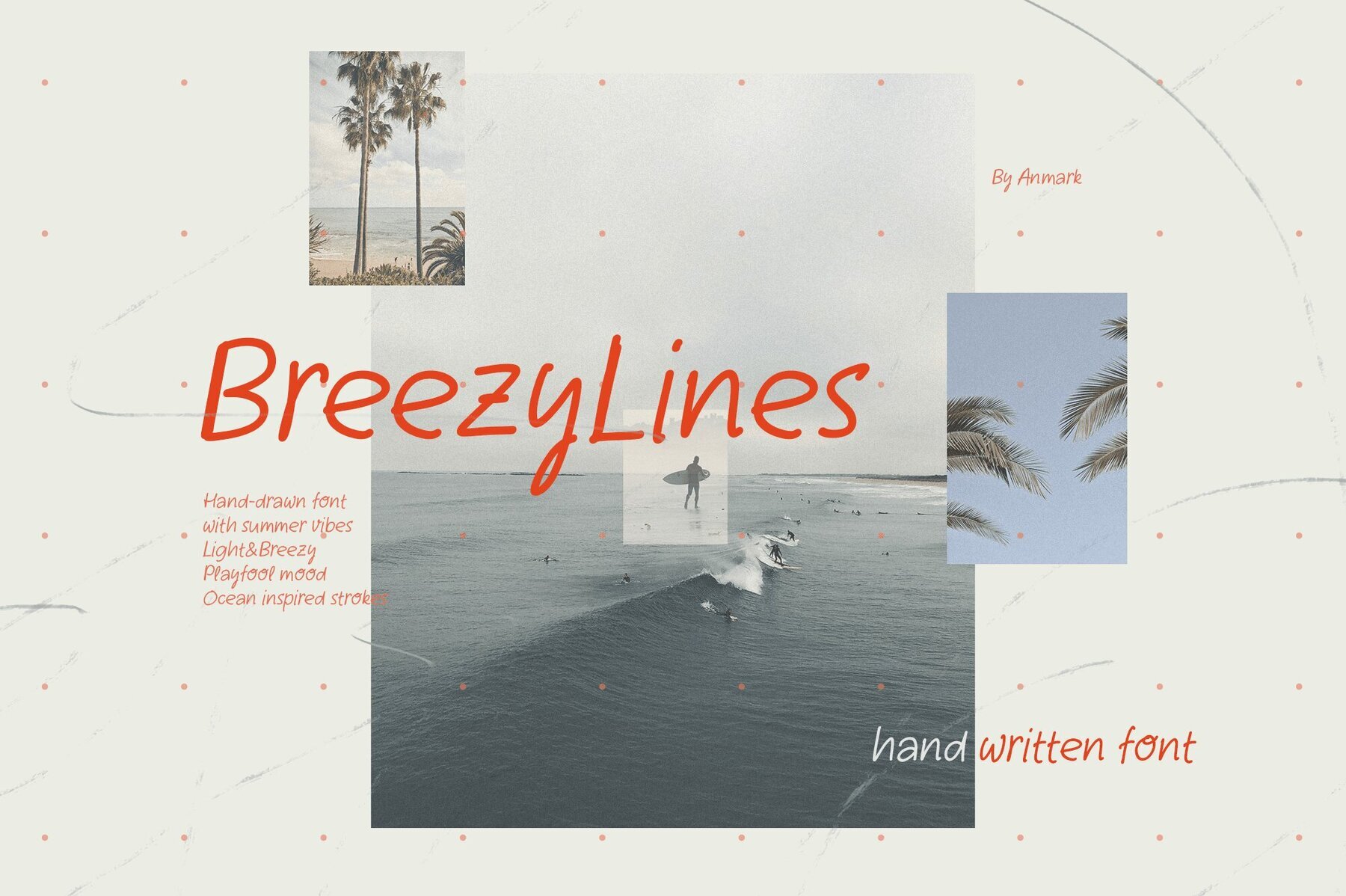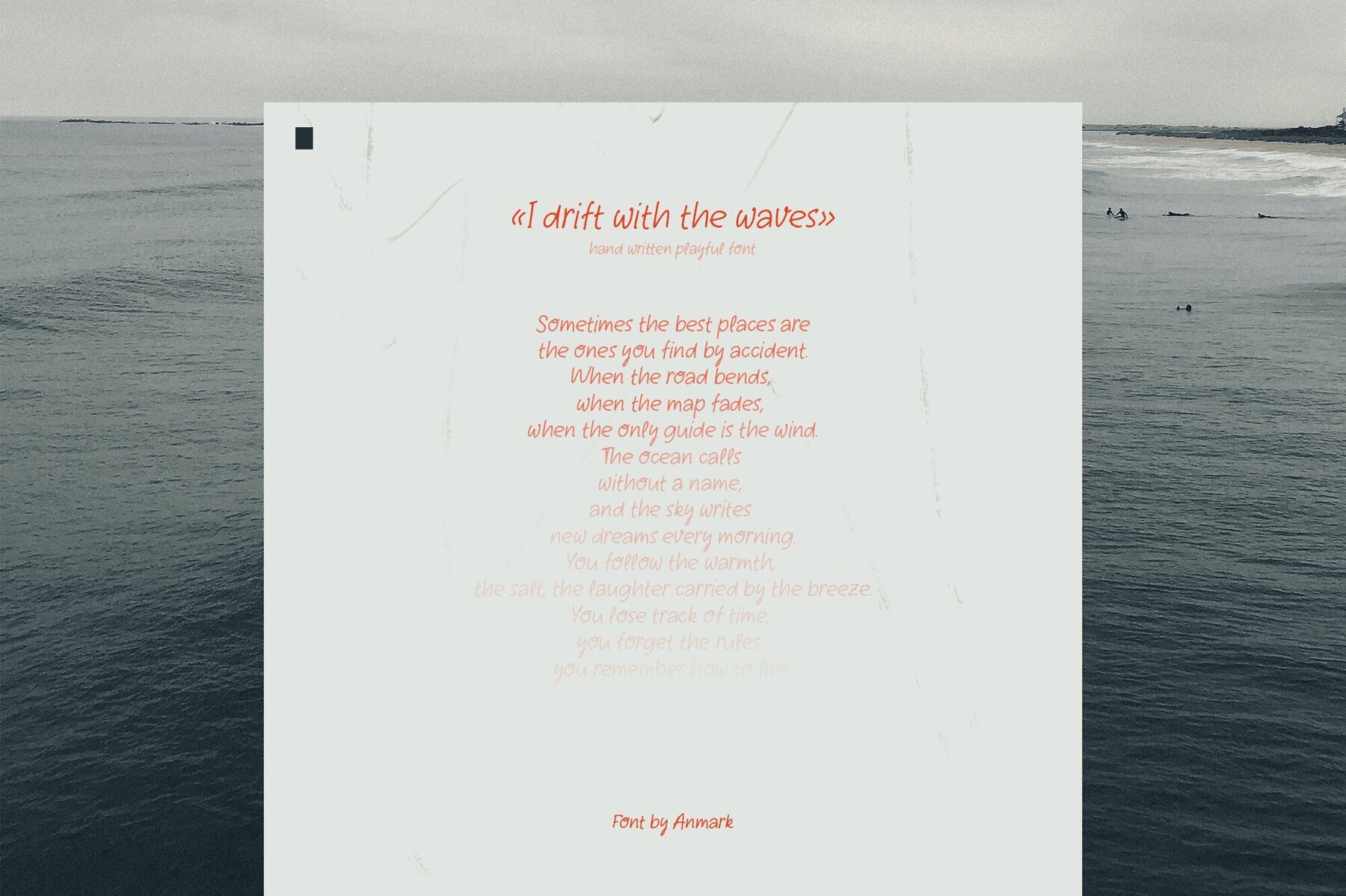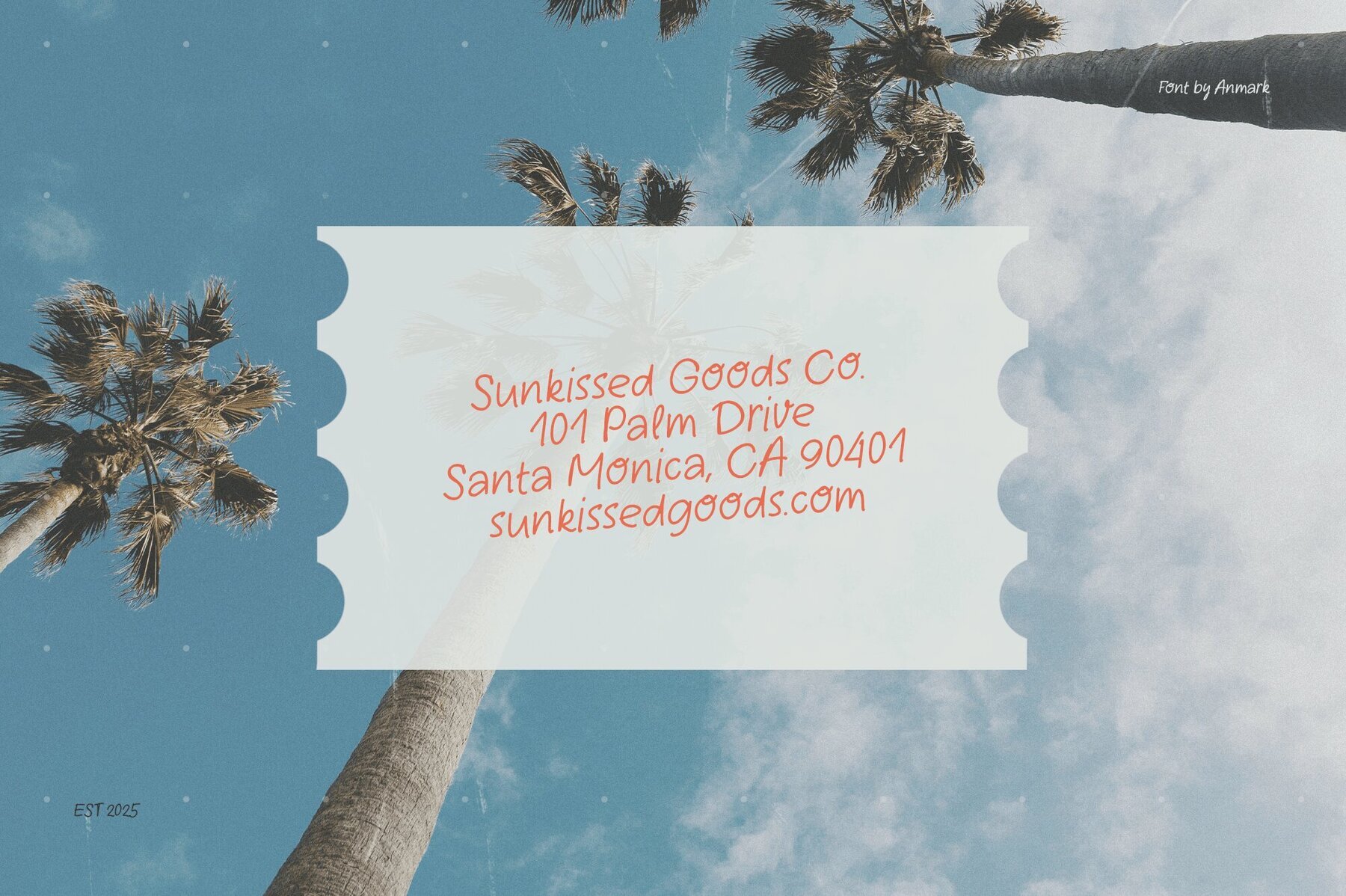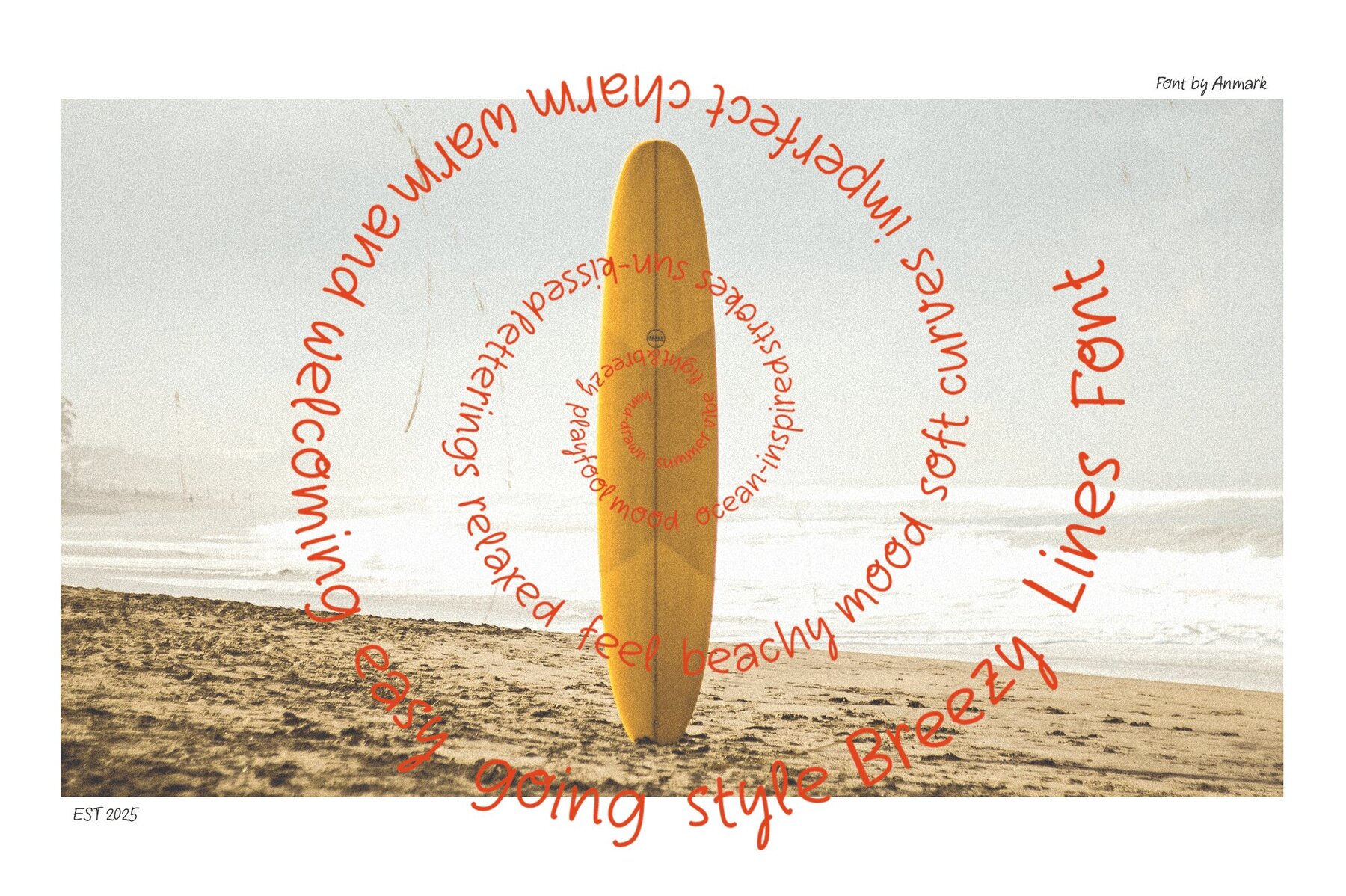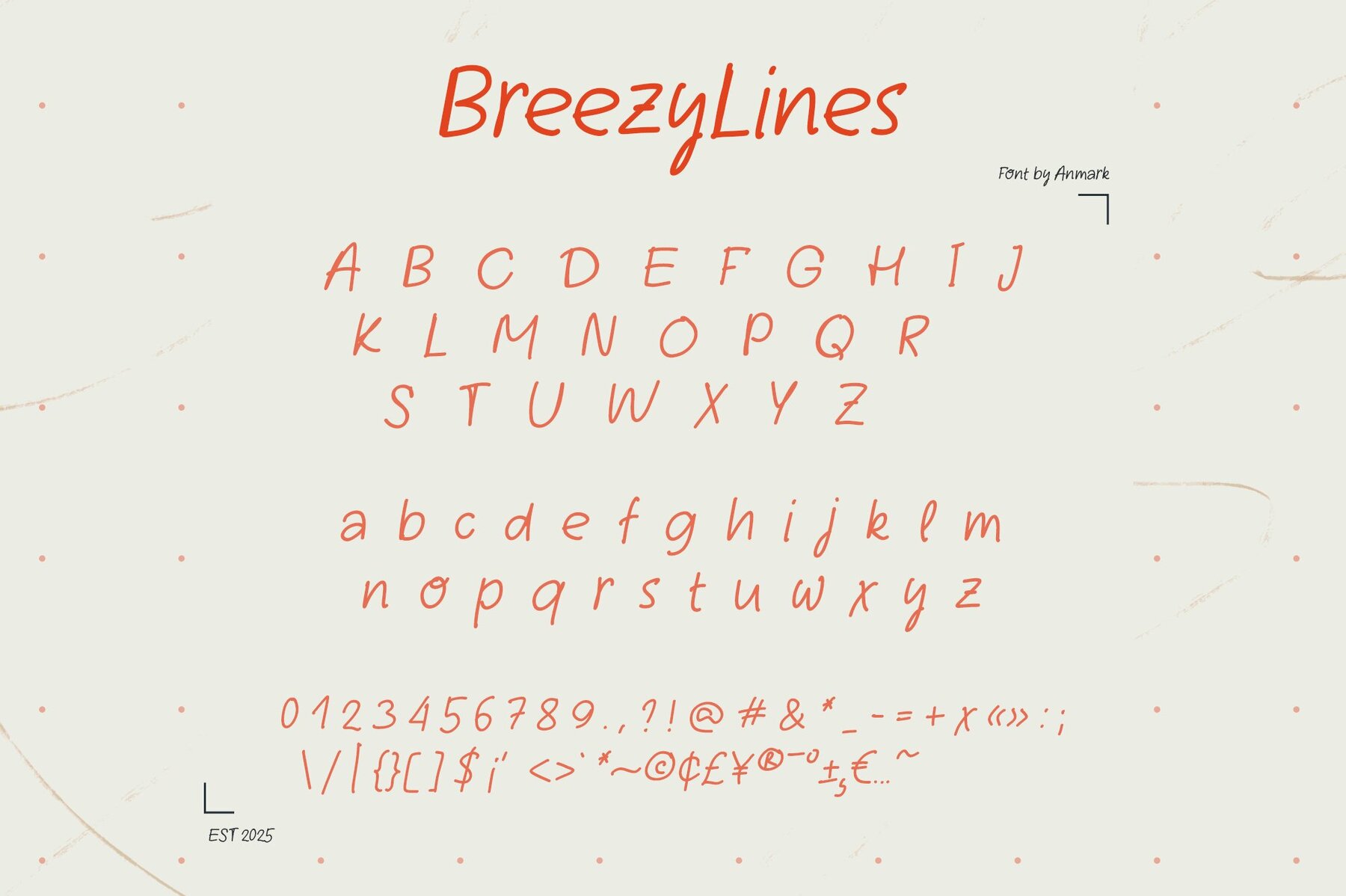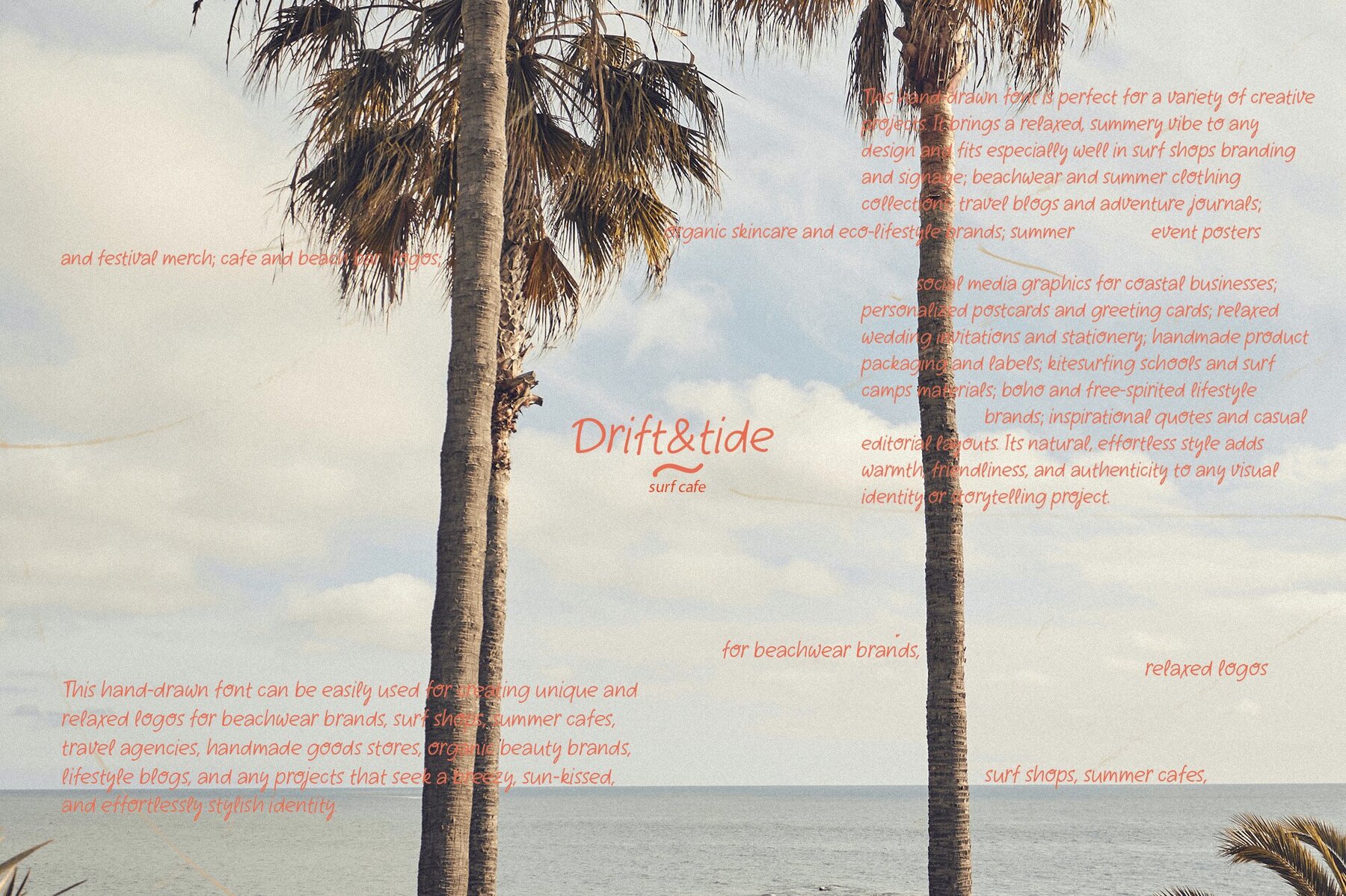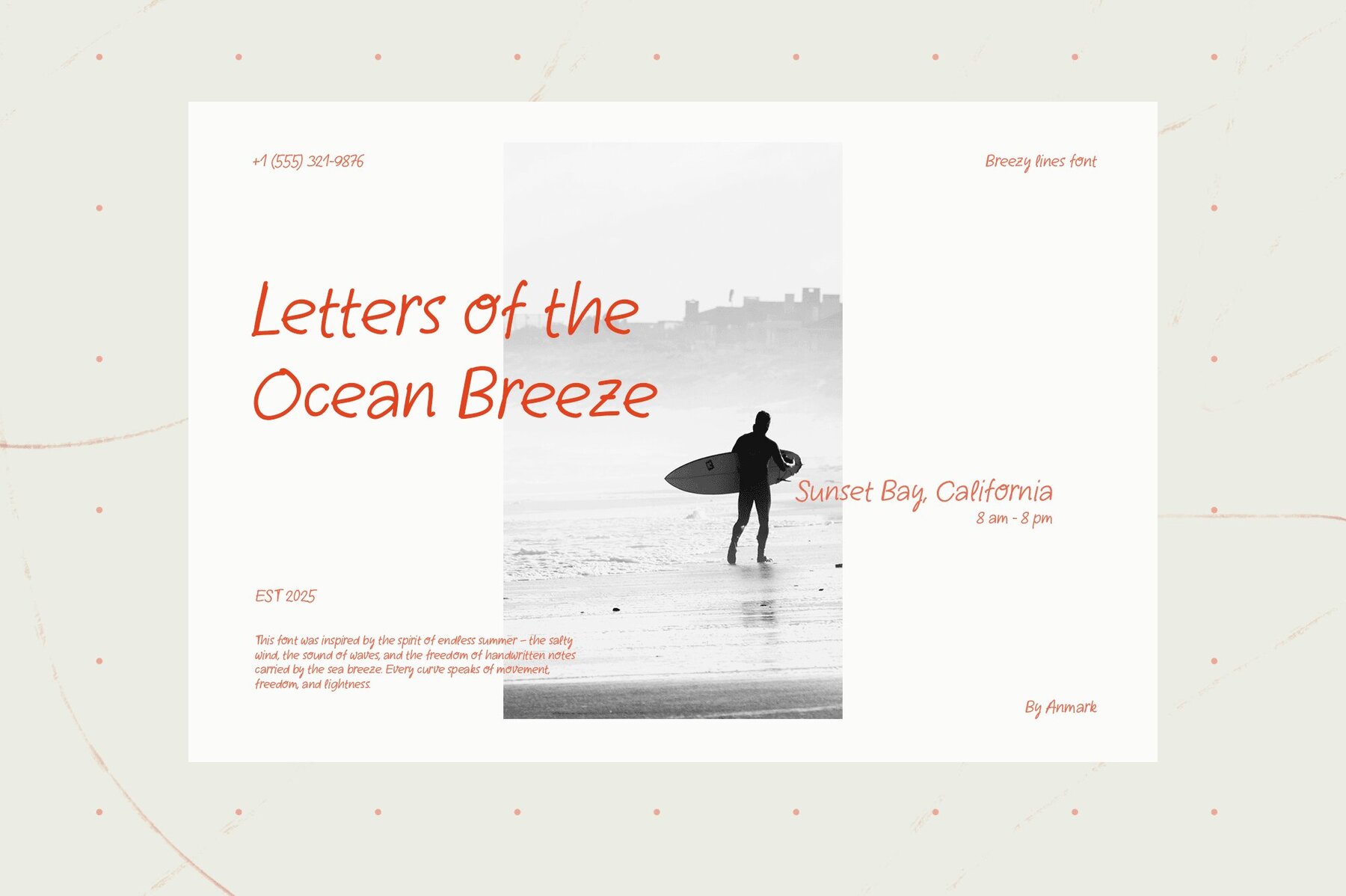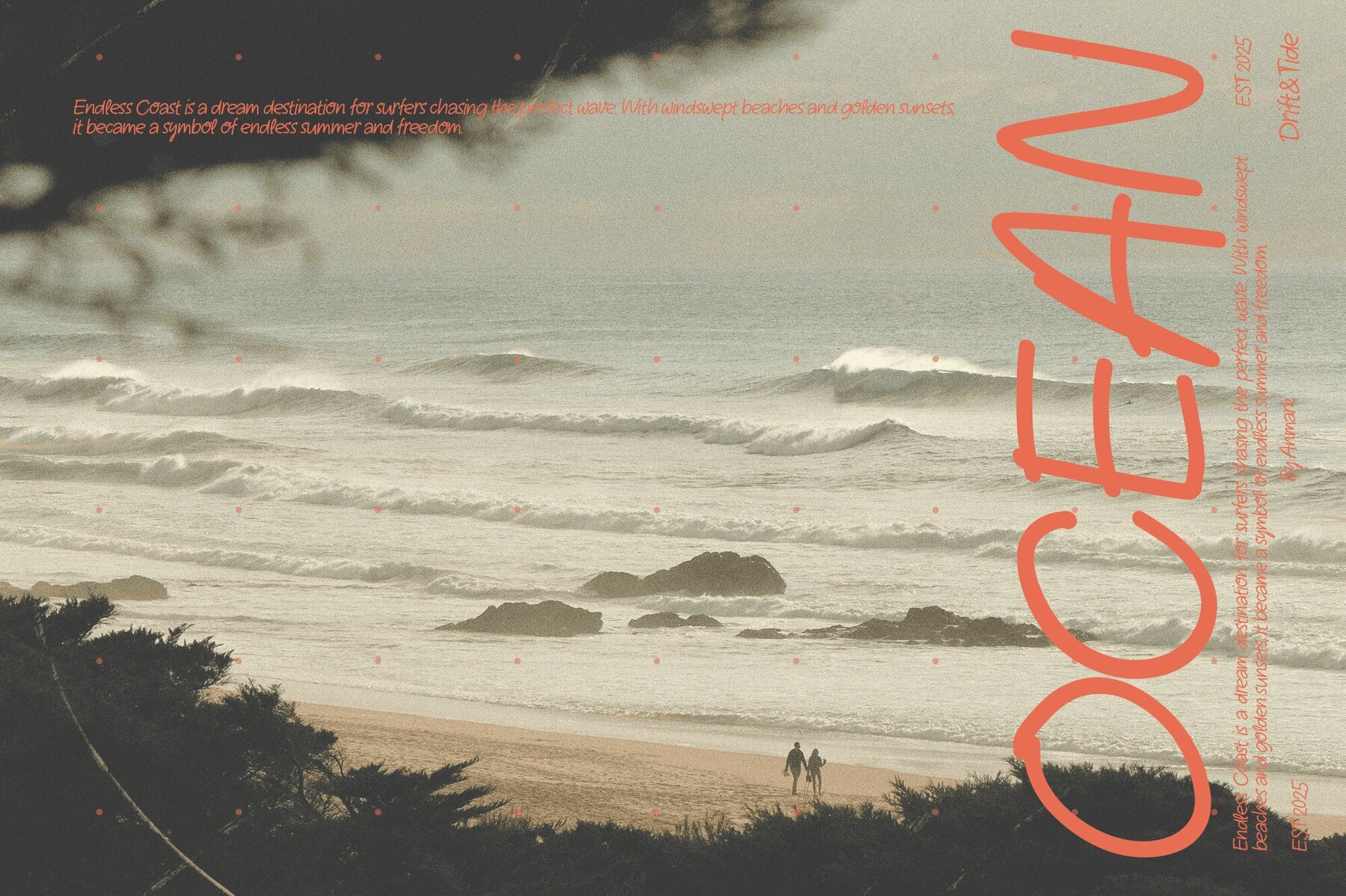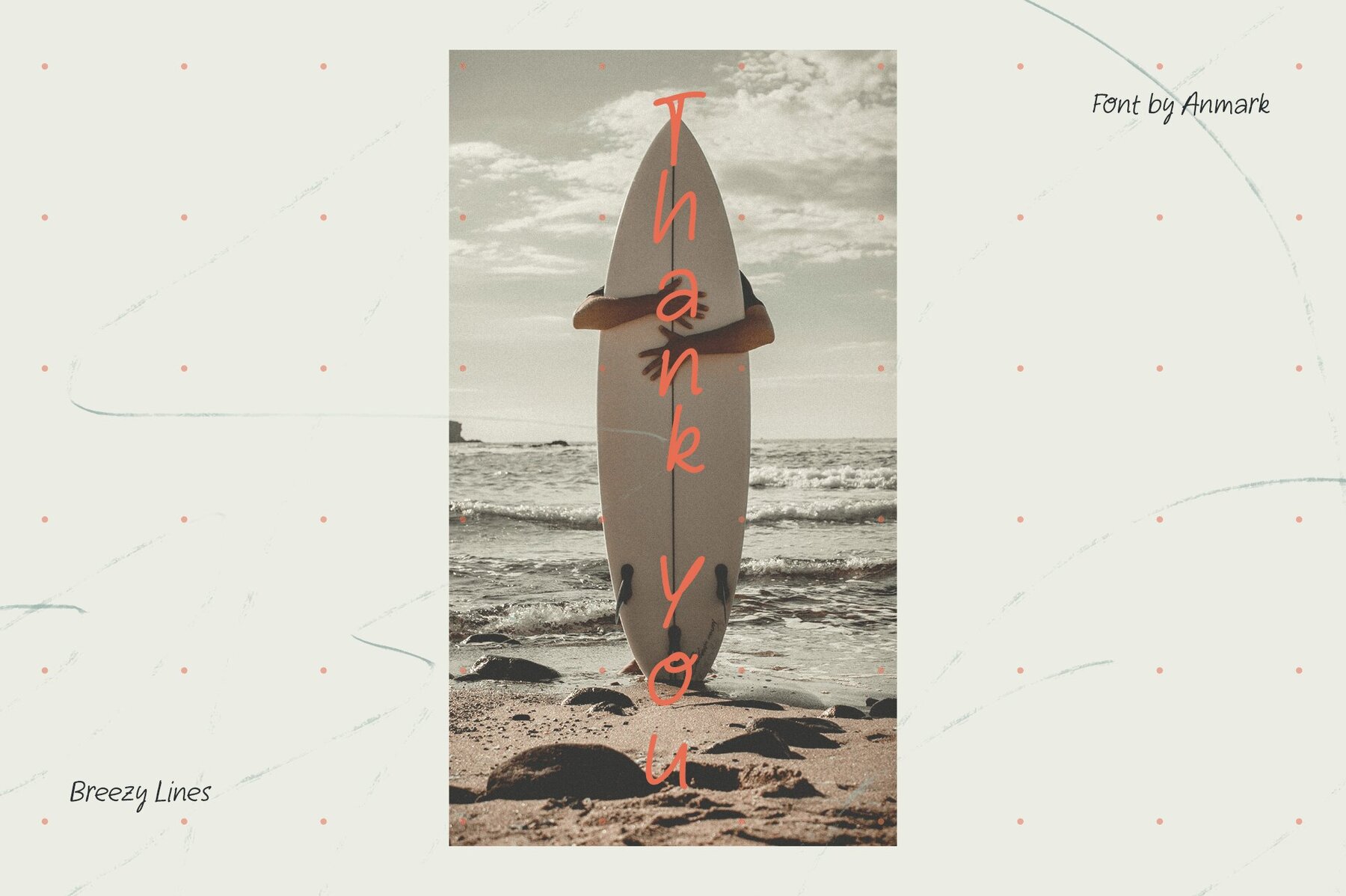
Breezy Lines Font
Breezy Lines
Inspired by the carefree spirit of sunlit days and ocean breezes, Breezy Lines is a hand-drawn font that infuses warmth, spontaneity, and effortless charm into any project. Its flowing, light strokes deliver a touch of summer's ease, making it perfect for designers seeking to capture that laid-back vibe. Ideal for diverse applications, Breezy Lines suits summer-themed posters, bohemian wedding invitations, beachwear collections, and travel blogs. It gracefully enhances social media graphics, greeting cards, and café branding by the sea, offering a relaxed and sunny disposition. With Breezy Lines, your designs receive a playful, fresh touch, resonating vibrancy and life akin to a perfect summer day.Breezy Lines: The Essence of Summer in Typography